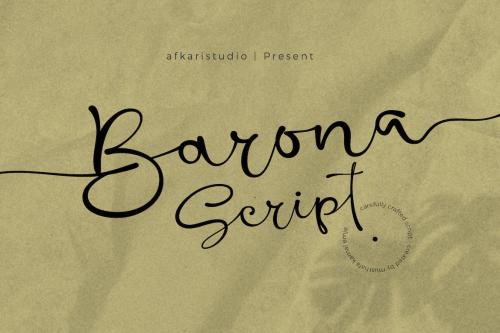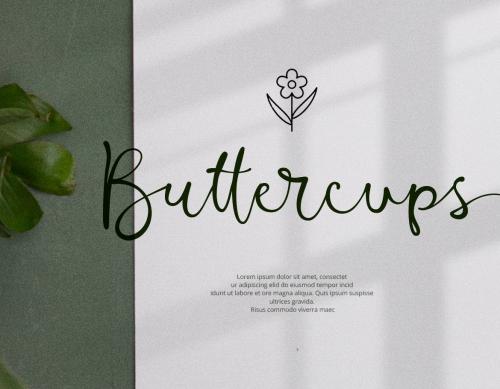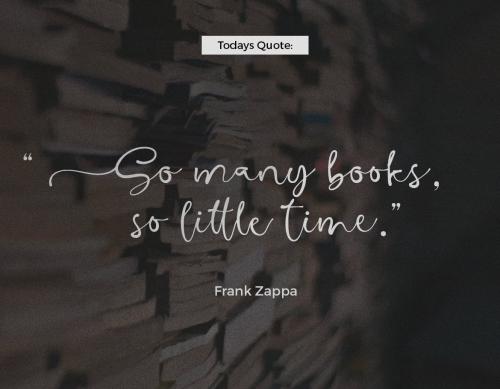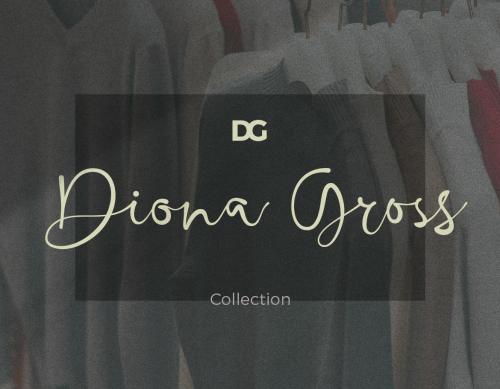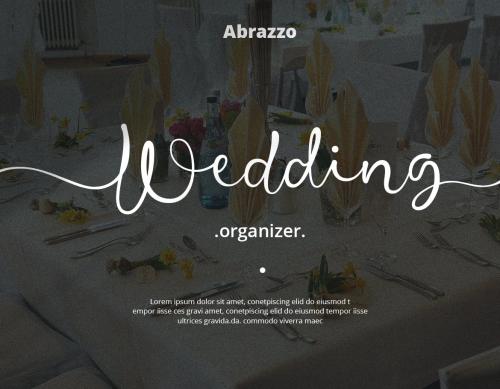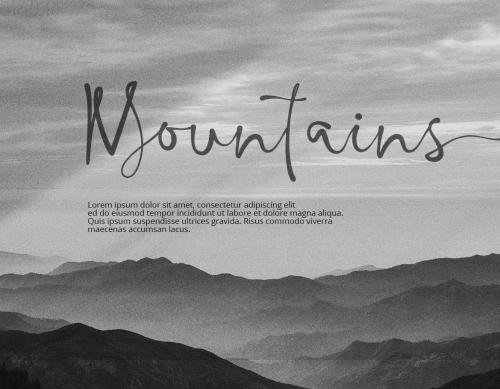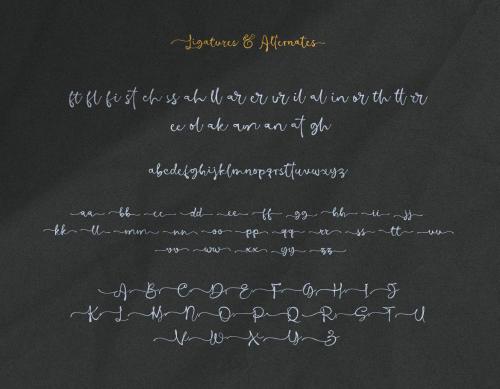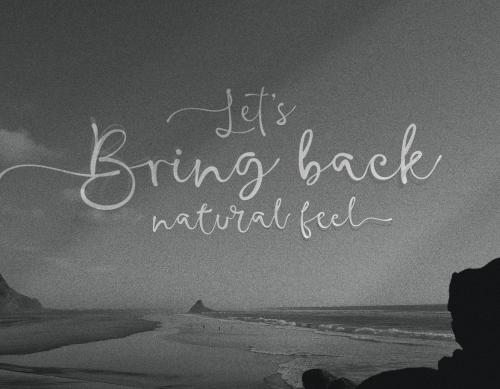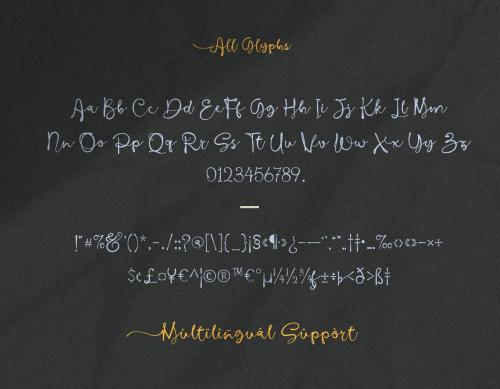
Introducing **Barona Script - Handwritten Signature Font**
Barona Script exudes timeless elegance with its graceful handwritten brush strokes. This font embodies a contemporary calligraphy style that seamlessly blends sophistication and playfulness, making it the ultimate choice for elevating your branding and digital designs.
Barona Script offers a treasure trove of alternative glyphs and ligatures for endless creative possibilities. Whether you''re crafting quotes, logos, social media content, websites, blogs, or invitation cards, this font is your artistic companion.
**Barona Script''s Features:**
- Uppercase, Lowercase, Number, and Punctuation
- Standart and Special Ligatures
- Mültîlíñgúãl Sùppört;